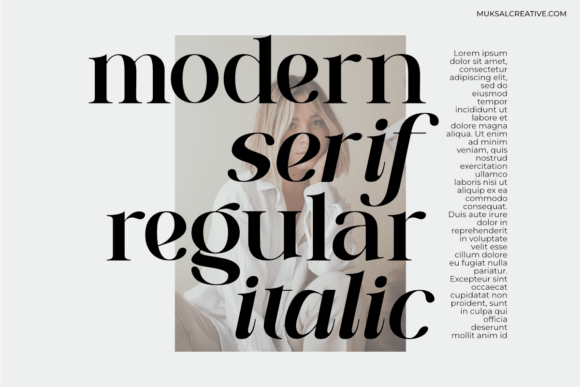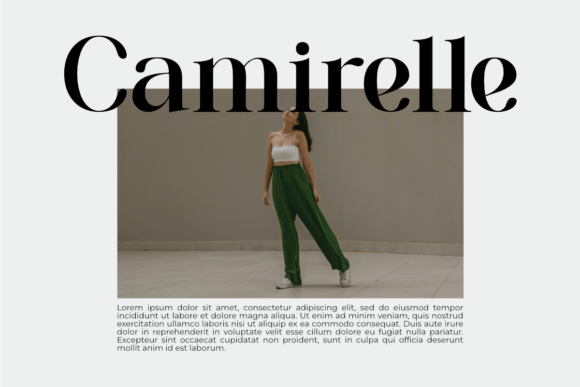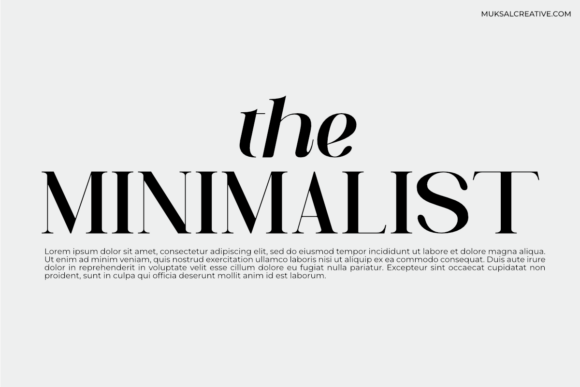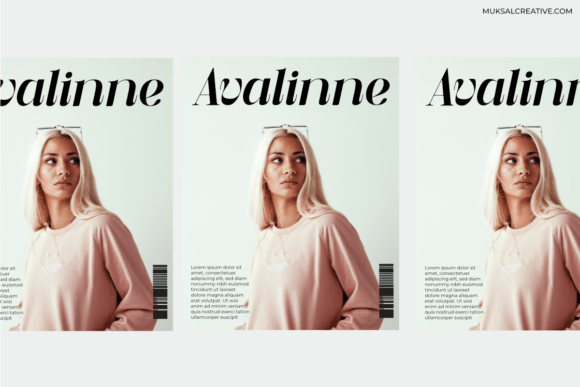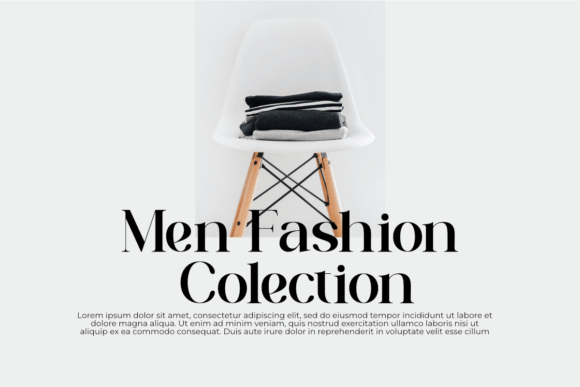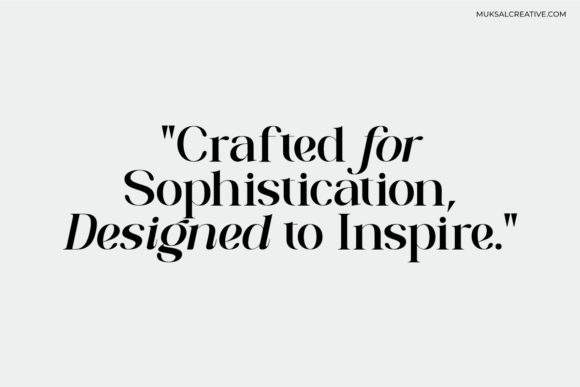
Introducing Calvoria Stelline: Elevate Your Designs with Timeless Elegance
In the world of typography, a font can make or break the aesthetic of a design. For those seeking a blend of classic sophistication and modern flair, Calvoria Stelline emerges as a beacon of elegance. This modern serif font is meticulously crafted to bring a refined contemporary touch to any project, making it an indispensable tool for designers and crafters alike.
Design Overview
Calvoria Stelline is characterized by its balanced proportions, sharp details, and graceful curves. Available in two styles—Regular and Italic—it offers versatility without compromising on style. The font’s design is a masterclass in blending traditional serif elements with a modern twist, ensuring that it stands out in any medium.
- Timeless Elegance: Calvoria Stelline’s serif design pays homage to traditional typography while incorporating a fresh, contemporary feel.
- Versatility: With two styles, Regular and Italic, the font can adapt to a wide range of design needs, from editorial layouts to digital content.
- Sophistication and Clarity: Its balanced proportions and sharp details ensure that text is not only elegant but also highly legible.
- Adaptability: Perfect for various applications, including branding, wedding invitations, fashion logos, and more.
Applications
Calvoria Stelline’s versatility makes it suitable for a myriad of design projects. Here are some ideal applications:
- Editorial Layouts: Bring a touch of sophistication to magazines, newspapers, and digital publications.
- Branding: Elevate your brand’s typography with a distinctive yet classic look.
- Wedding Invitations: Add a hint of luxury and romance to your wedding stationery.
- Fashion Logos: Stand out in the fashion industry with a logo that exudes style and elegance.
- Digital Content: Enhance your website, blog, or social media graphics with a refined and contemporary font.
Why Choose Calvoria Stelline?
In a sea of fonts, Calvoria Stelline distinguishes itself through its unique blend of classic and modern elements. Here are a few reasons why it should be your go-to font:
- Confidence and Style: It makes a confident and stylish impression, perfect for designers and brands looking to leave a mark.
- Legibility: Its design prioritizes clarity, ensuring that your message is conveyed effectively.
- Uniqueness: Stand out from the crowd with a font that is both distinctive and versatile.
Tips for Using Calvoria Stelline
To maximize the impact of Calvoria Stelline in your designs, consider the following tips:
- Pair with Simplicity: Let the font be the focal point by pairing it with simple backgrounds or design elements.
- Experiment with Sizes: Play with different sizes to create visual hierarchy and emphasize key messages.
- Mix and Match: Combine the Regular and Italic styles to add depth and dynamism to your designs.
Calvoria Stelline is more than just a font; it’s a design statement. With its modern serif design, elegant features, and versatile applications, it’s poised to become an essential part of your design toolkit. Whether you’re crafting editorial layouts, branding materials, or personal projects, Calvoria Stelline offers the perfect blend of sophistication, clarity, and charm. Elevate your designs and make a lasting impression with Calvoria Stelline.